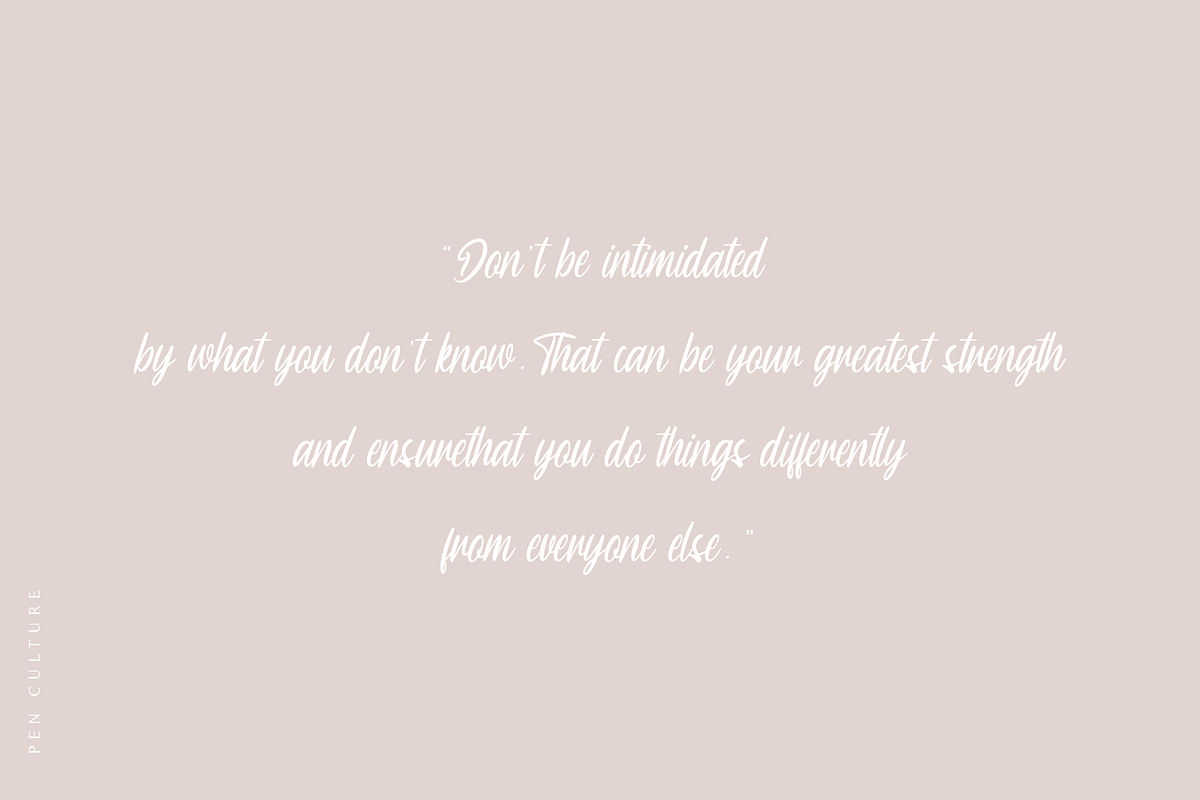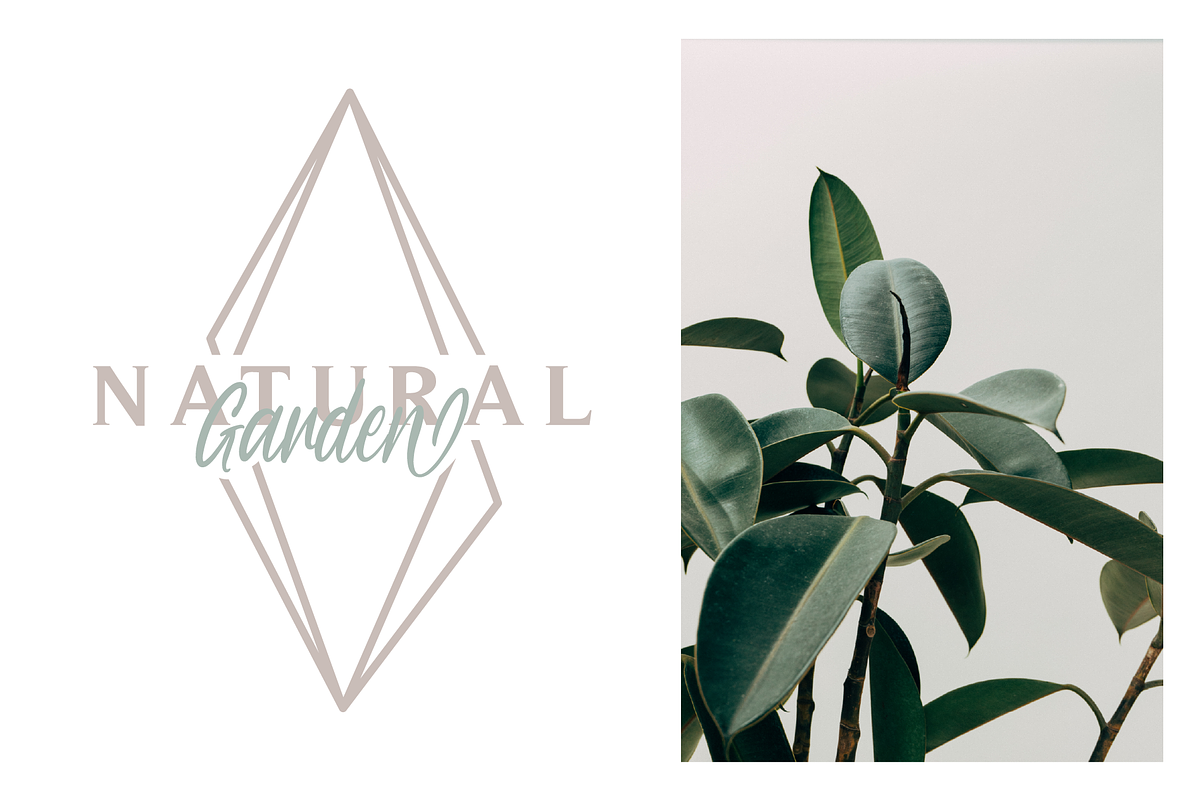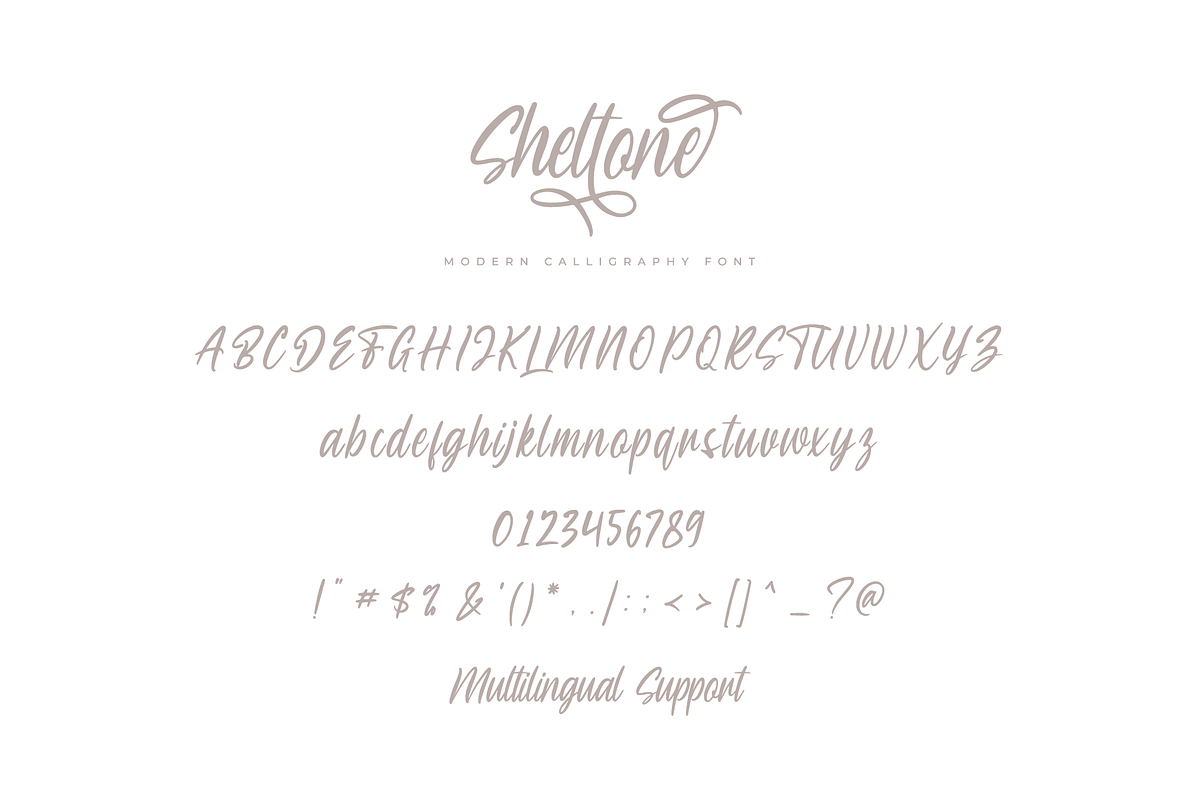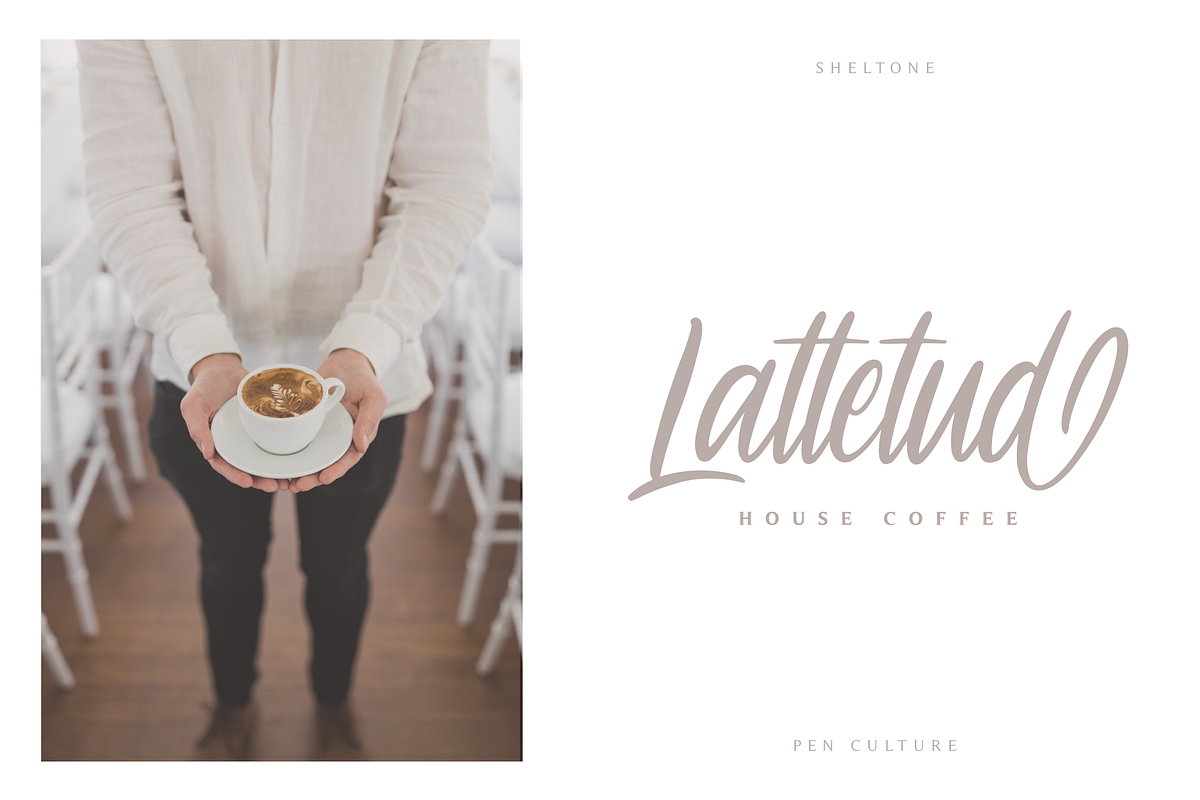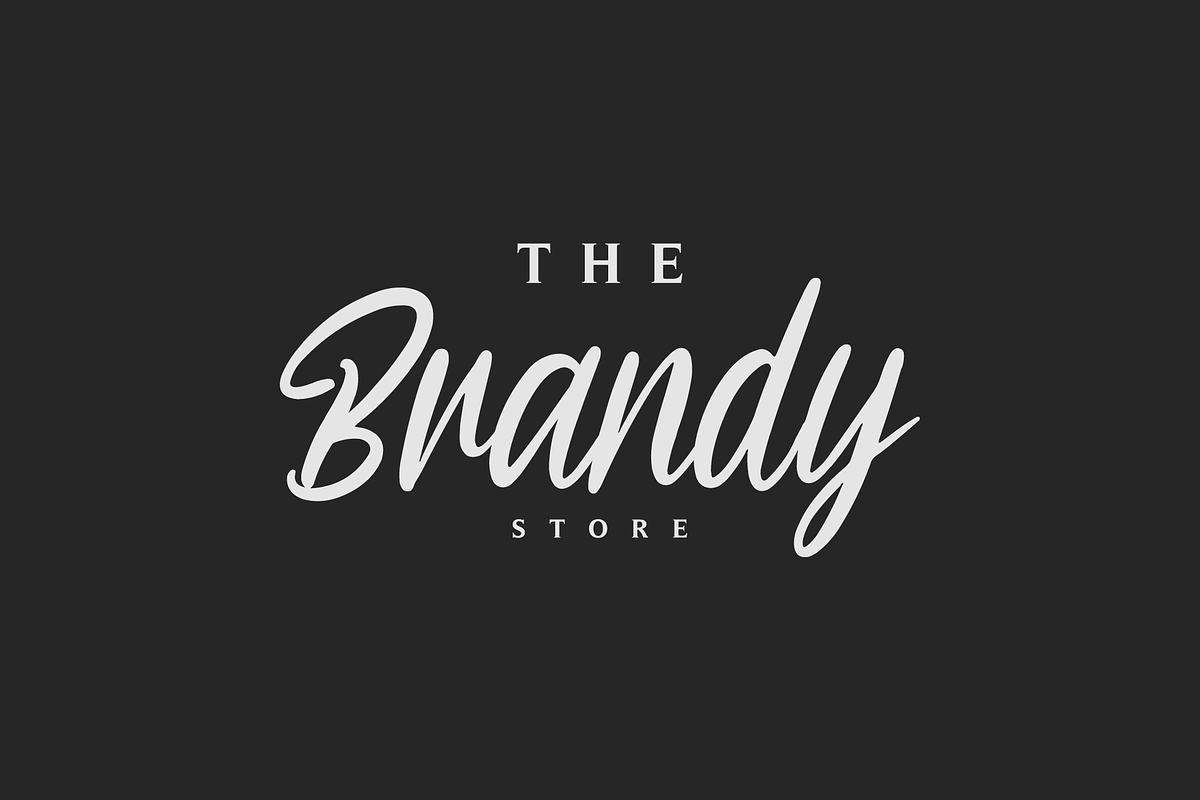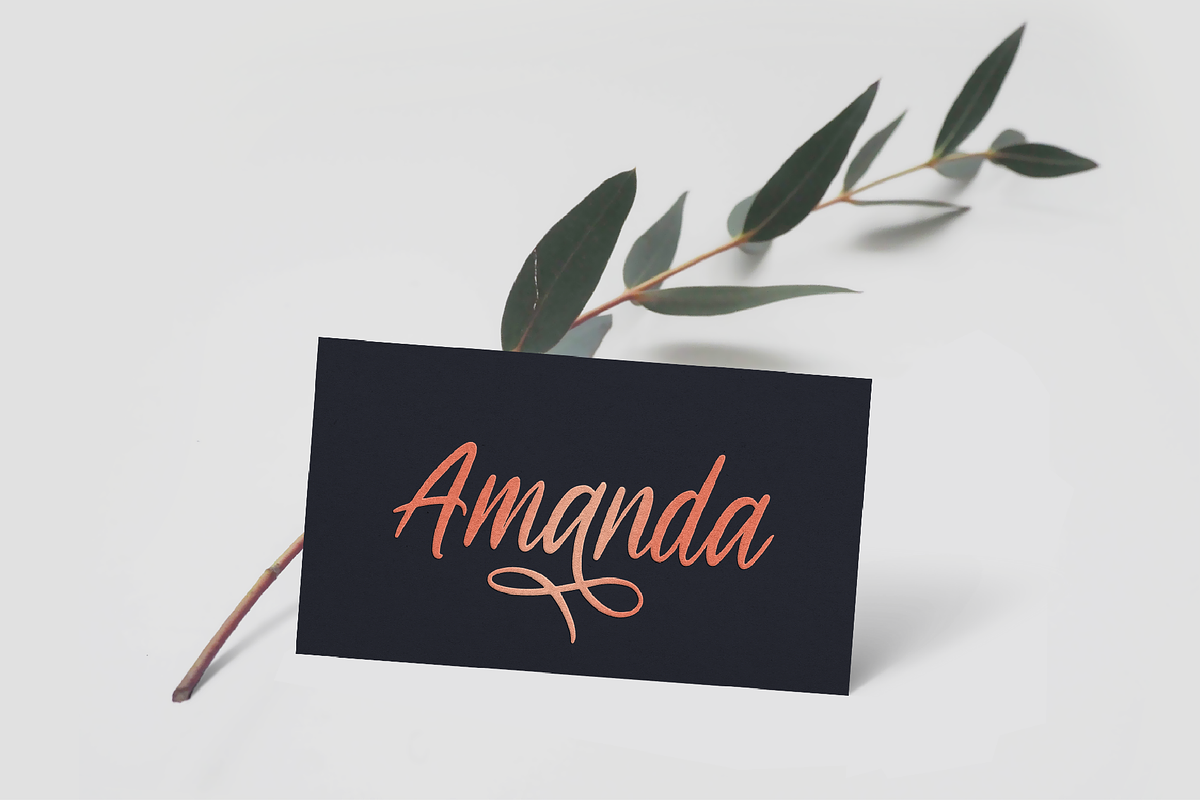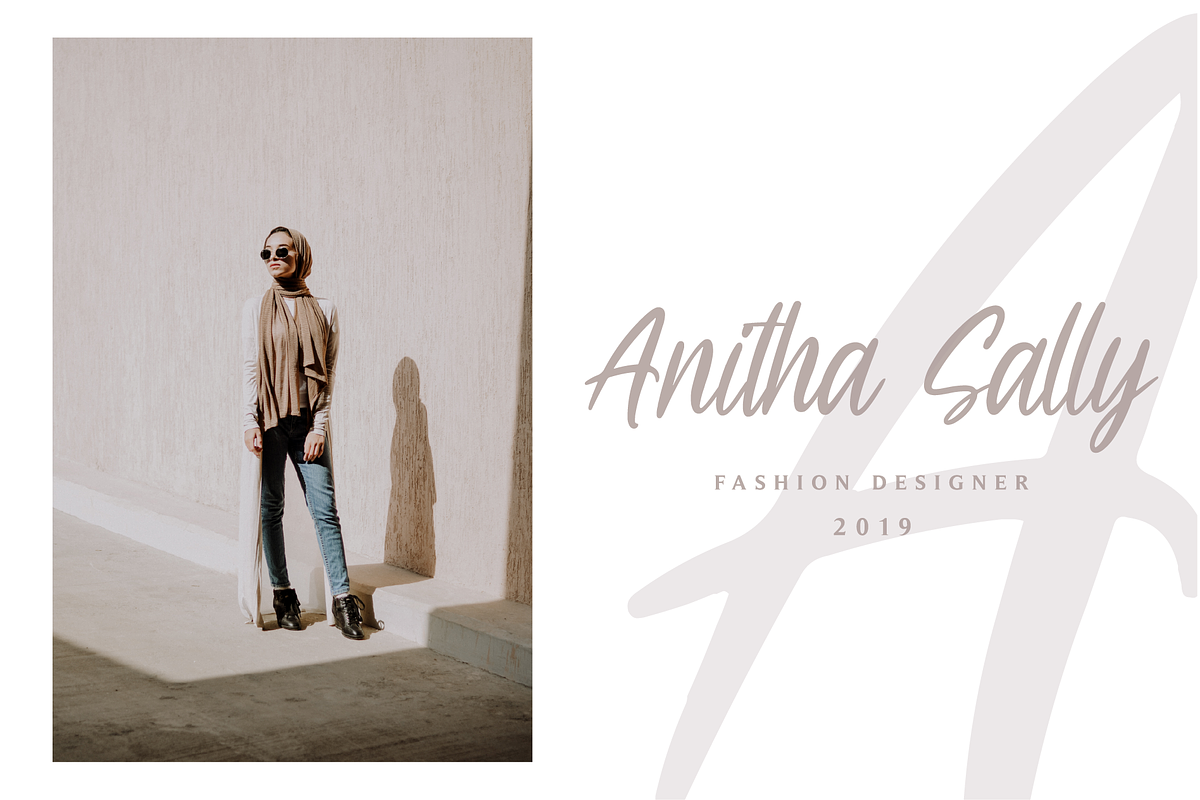
Sheltone - Modern Calligraphy Font
Sheltone is beautiful modern calligraphy font that comes with various kinds of alternate that will make designing Instagram quotes, websites, invitations, poster, and many other so much easier and fun.
Uppercase and lowercase